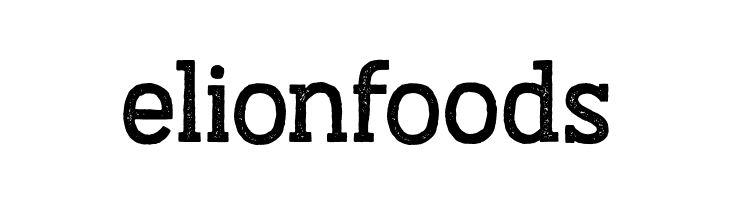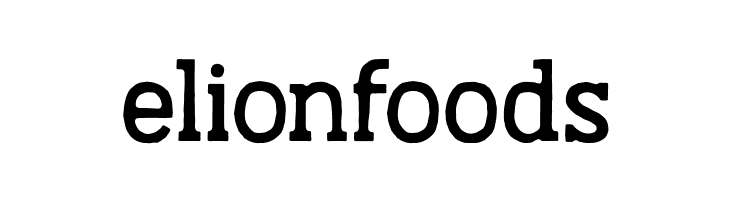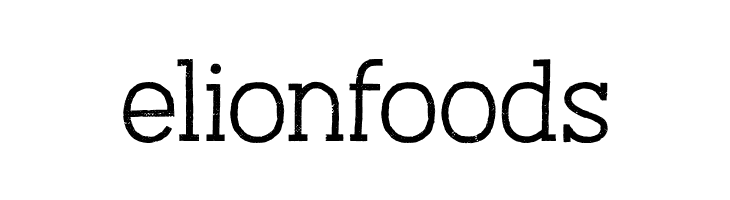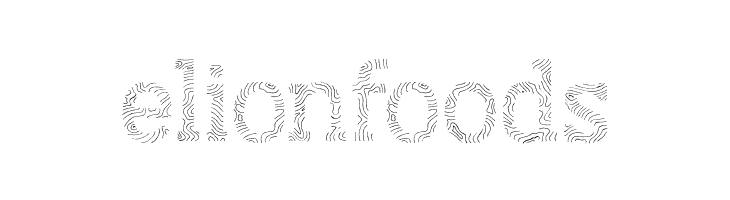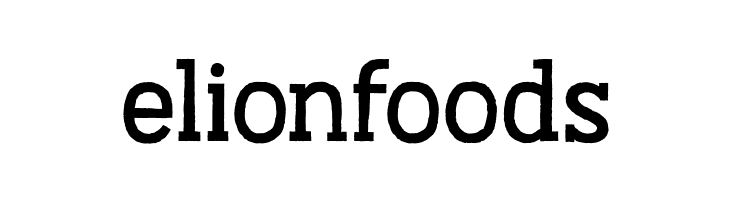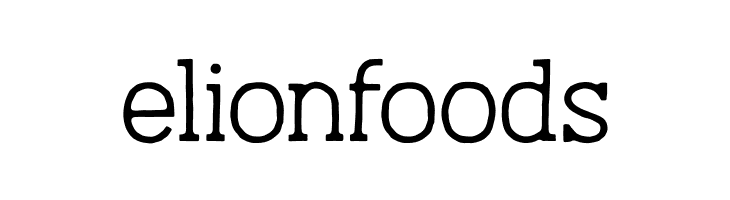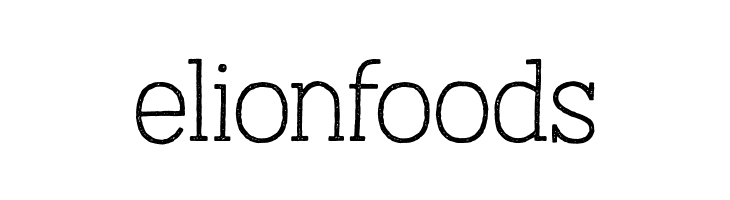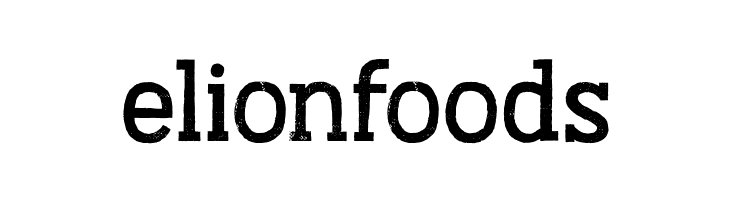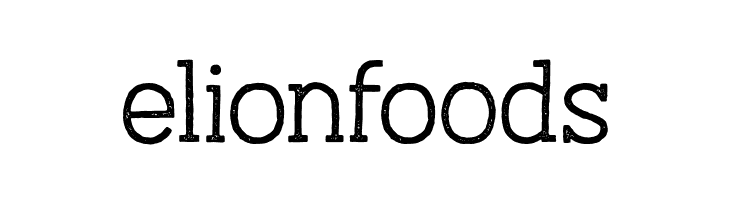
A rugged, textured slab serif font with a vintage, industrial feel.
A bold slab serif font with strong, block-like serifs and a modern yet timeless appeal.
A rustic, slab serif font with a textured, vintage appearance.
A decorative font with intricate line patterns resembling topographic maps.
A rugged, textured slab serif font with a handcrafted feel.
A modern slab serif font with a subtle blur effect, offering a unique and approachable style.
A thin, slab serif font with a vintage, stamped texture.
A rugged, textured slab serif font with a vintage, handcrafted feel.
A thin, rough slab serif font with a hand-drawn, rustic charm.
A textured slab serif font with a vintage, stamped appearance.